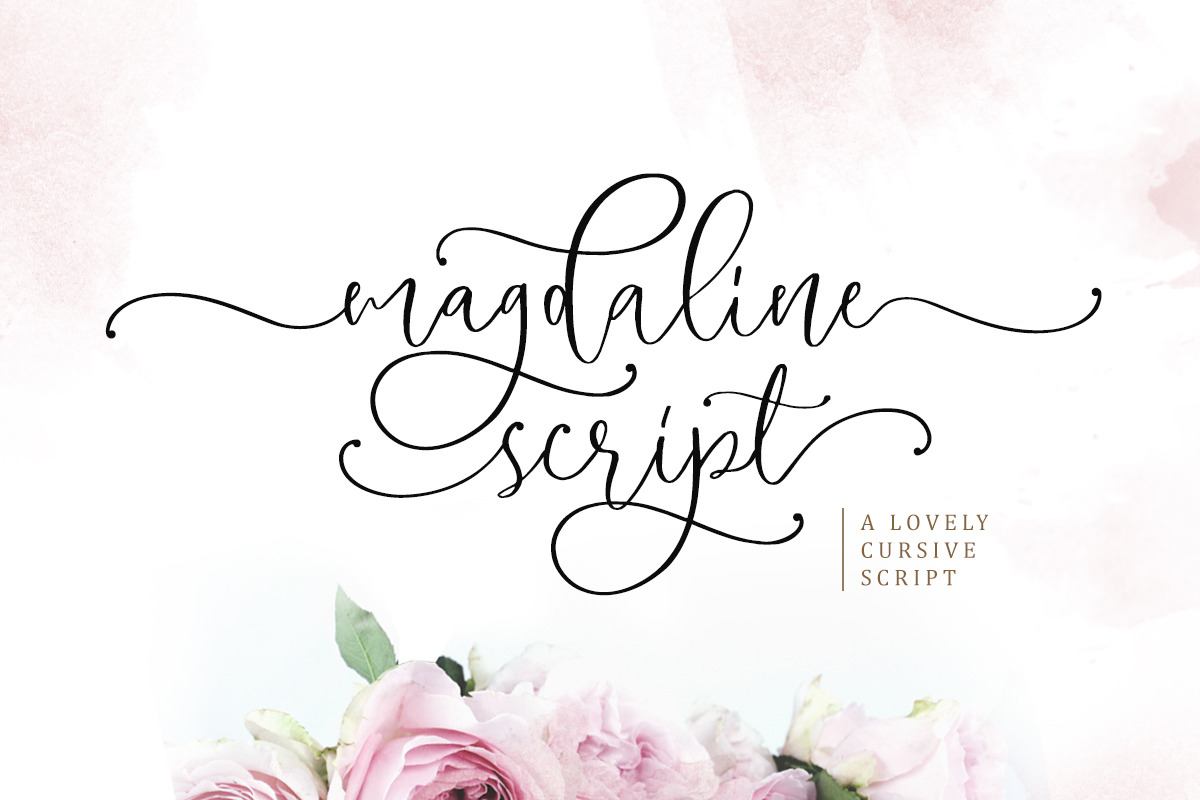
Magdaline - Lovely Script Font Free Download is a beautiful and elegant handwritten typeface with a flowing, cursive style. Perfect for creating romantic and personal designs, Magdaline is ideal for wedding invitations, branding, greeting cards, social media graphics, and other creative projects that need a touch of grace and charm.
Magdaline - Lovely Script Font Free Download brings a soft, graceful feel to your typography, making it perfect for designing delicate logos, stylish invitations, or heartfelt messages. Whether you're working on a wedding-themed project, a boutique brand, or a personal design, Magdaline adds a sweet, handwritten elegance to your work. Download it today and bring a touch of love and beauty to your next design with Magdaline!